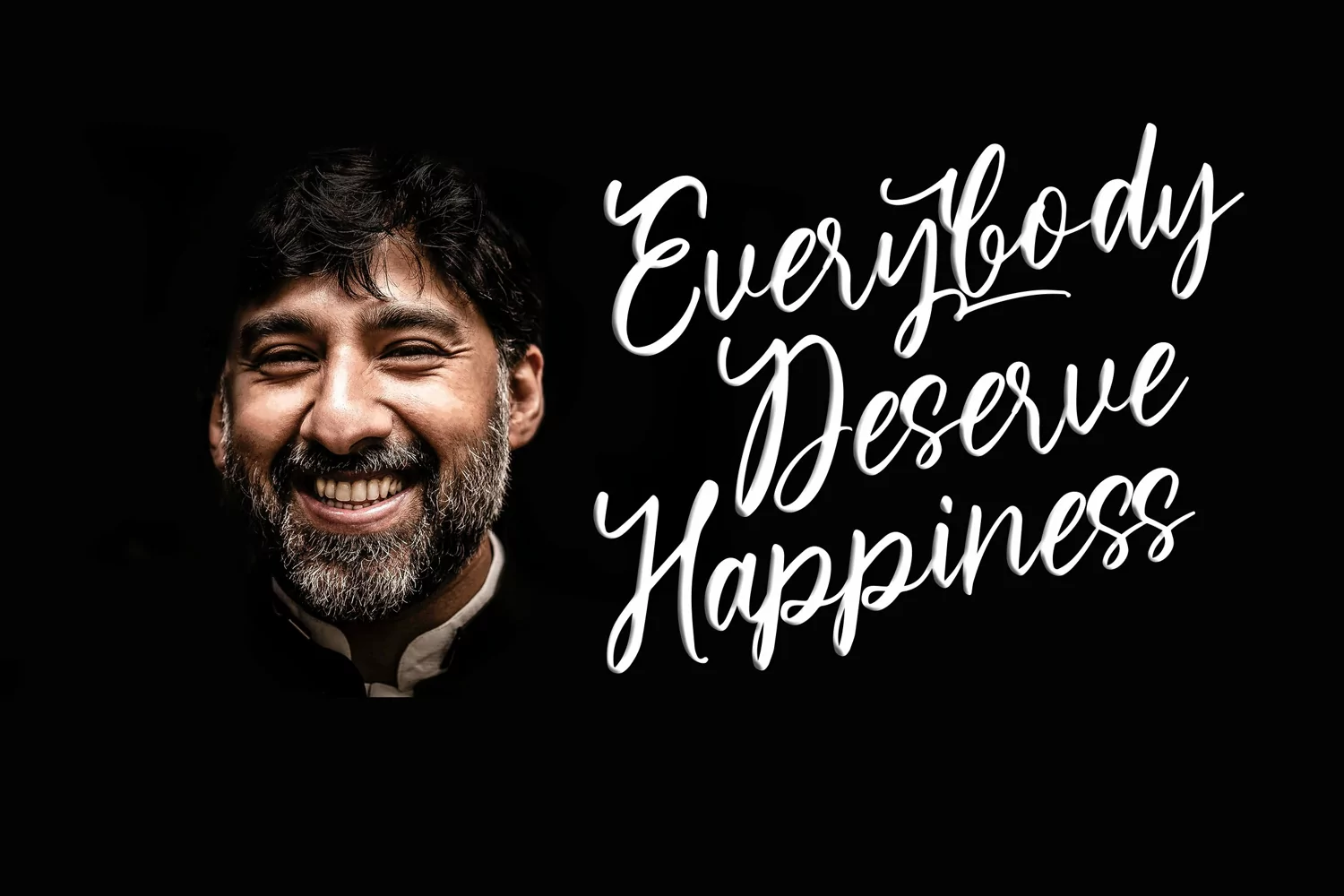
Midnight Stars - Beauty Script Font that contain lowercase, uppercase, symbol, and also support multi language. There’s a lot ligatures in this font. This Font also comes with ligatures, alternates and many more. this font suitable for fashion, branding, catalog and other design what you want.
Midnight Stars